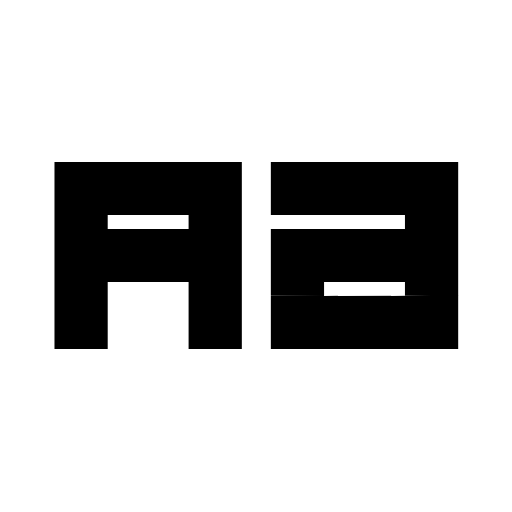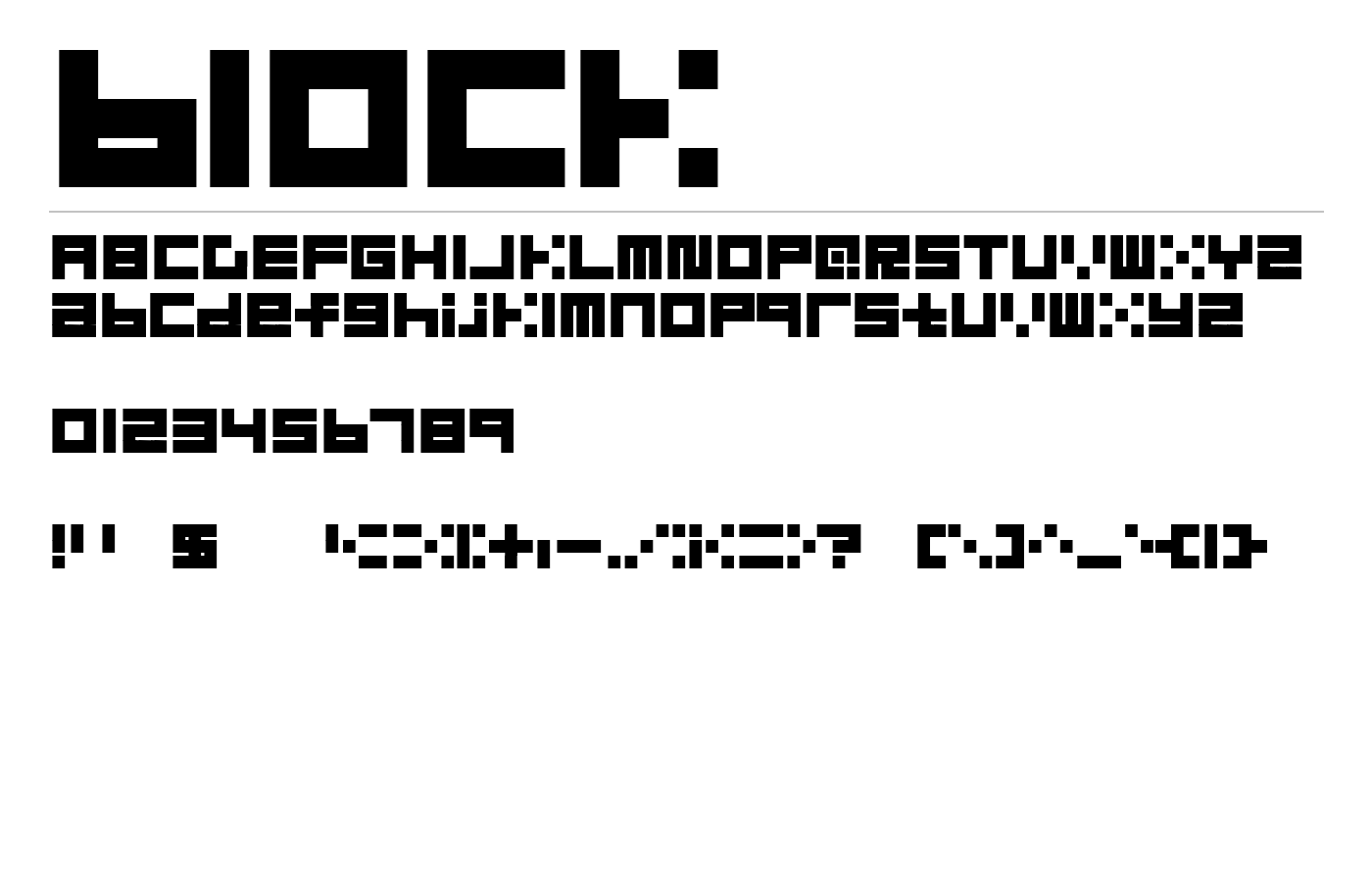
Block Font is a bold, geometric sans serif featuring thick, uniform strokes and a square, modular design that gives it a modern, digital feel. Its condensed letterforms and high x-height create a strong, compact appearance, making it ideal for eye-catching headlines, posters, and branding that seeks a futuristic or tech-inspired vibe. This font works best in display settings where its blocky, pixelated style can add a distinctive, assertive personality.
block Font
About block Font